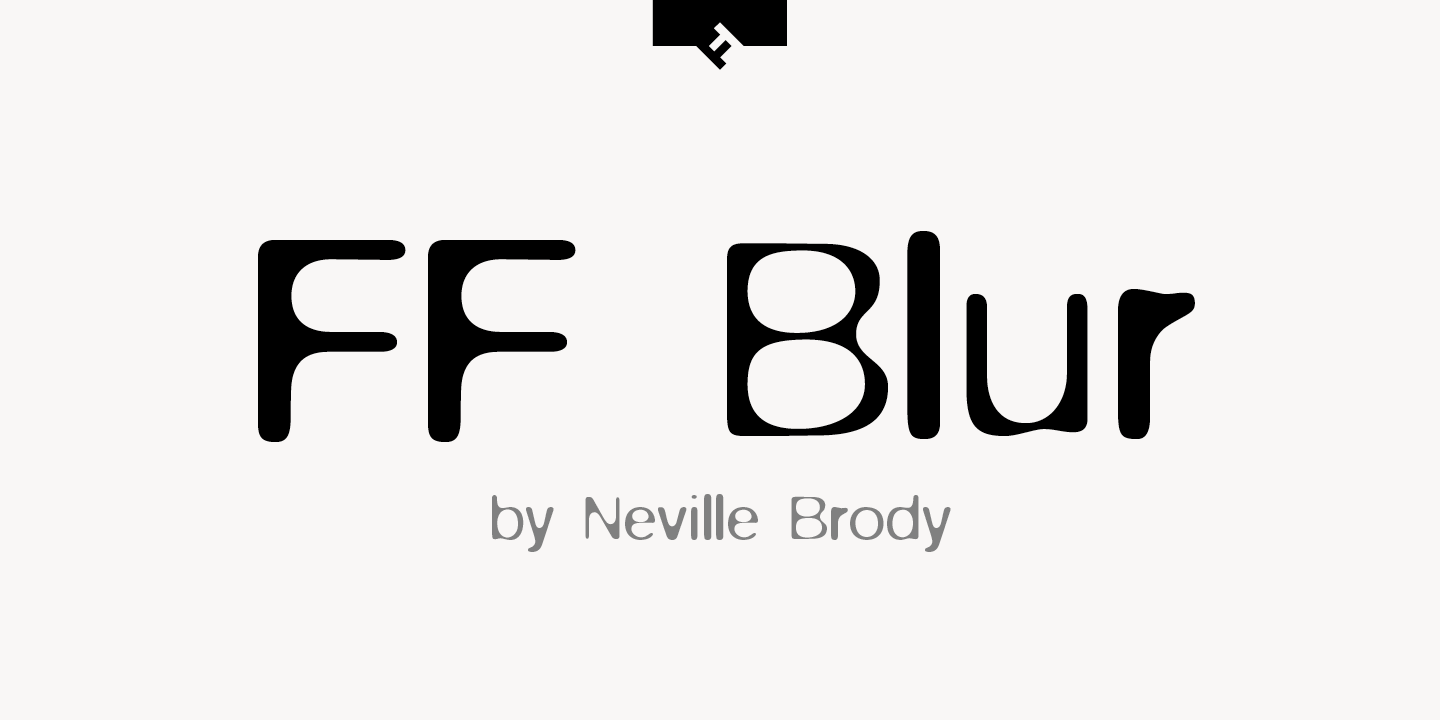
FF Blur Font is a radically innovative and visually experimental typeface, perfect for designs that aim to convey a sense of movement, digital distortion, or an artistic, unconventional aesthetic. Designed by Neville Brody, it pushed the boundaries of digital typography by intentionally blurring the letterforms, creating a unique visual effect. This makes it an excellent choice for cutting-edge magazine covers, electronic music album art, avant-garde fashion campaigns, and interactive digital installations. Imagine it creating a dreamy, ethereal effect for a website banner, providing a sense of speed and motion for sports advertisements, or adding an abstract touch to art exhibition titles. This font is also superb for video graphics, experimental posters, and any project where an artistic, disruptive, and visually intriguing identity is key. It doesn't just display text; it transforms it into a dynamic visual experience.
What makes FF Blur Font so exciting is its intentional subversion of traditional typographic legibility for artistic expression. It challenges the viewer to engage with the text in a new way, pushing the boundaries of what a font can be. This distinctive characteristic makes it a fantastic choice for designers looking to infuse their projects with a sense of innovation, conceptual depth, and a powerful, unique aesthetic. It’s a font that speaks with an unconventional and artistic voice, making it ideal for brands and content creators who want to convey creativity, boldness, and a memorable identity that truly stands apart. Its visually arresting appeal can make any message feel more intriguing and undeniably impactful.
The FF Blur Font family is typically structured to reflect its core concept of progressive blurring, offering different levels of this effect as its "weights" or variations. You can expect to find distinct members that explore this visual transformation, such as:
• FF Blur Light (a more subtle blur effect)
• FF Blur Regular (the standard blurred version)
• FF Blur Bold (a more intense, heavier blur)
• FF Blur Italic (if slanted versions of the blurred effect exist)
These variations empower designers to create atmospheric effects, emphasize specific elements with varying degrees of clarity, and maintain a consistent, experimental, and contemporary look throughout their designs. The opportunity to utilize FF Blur Font Free Download is an excellent way to experience its unique intensity and artistic presence for your personal design ventures.